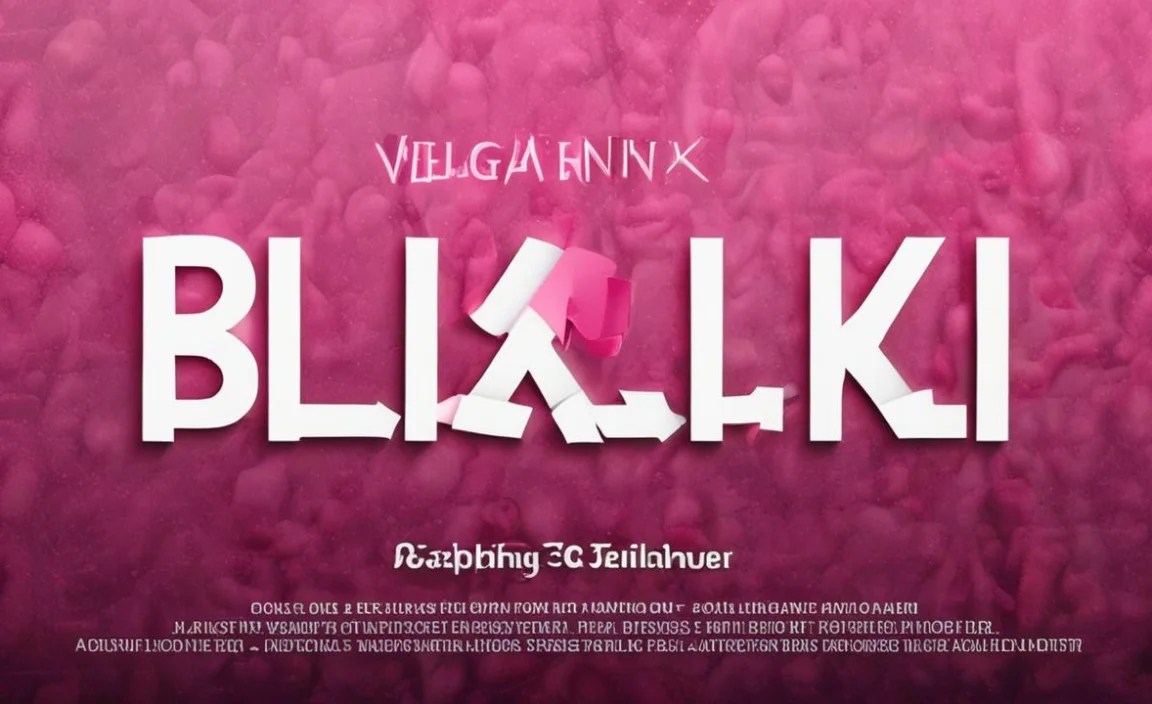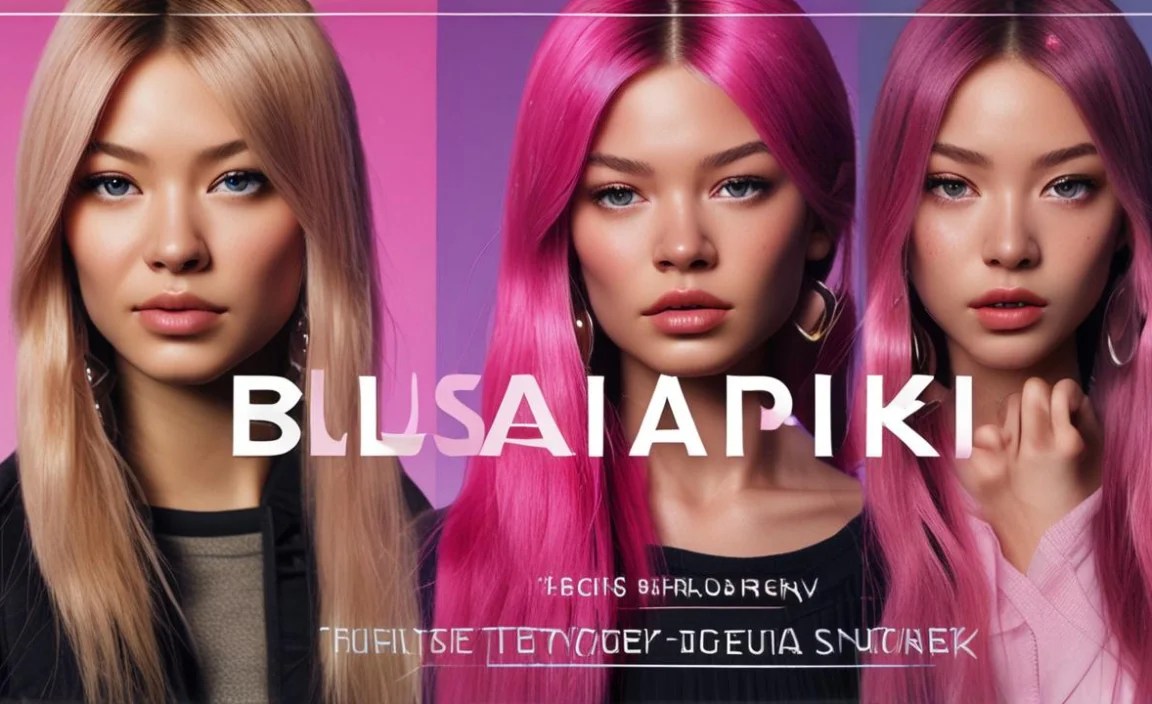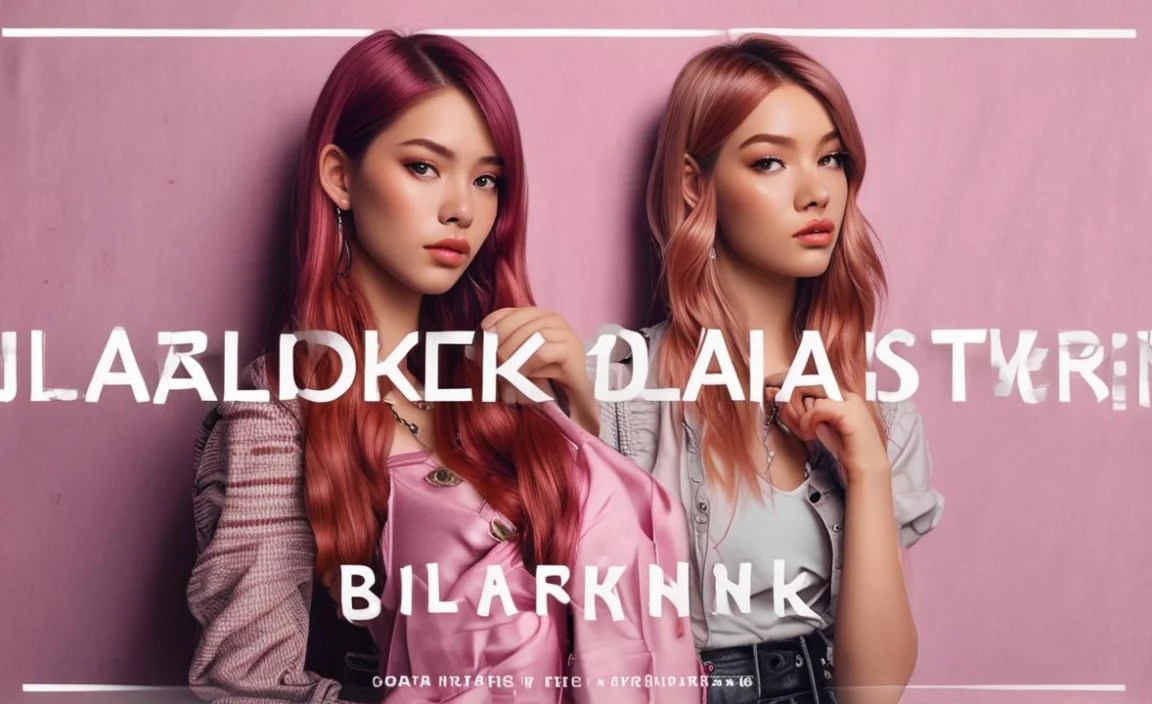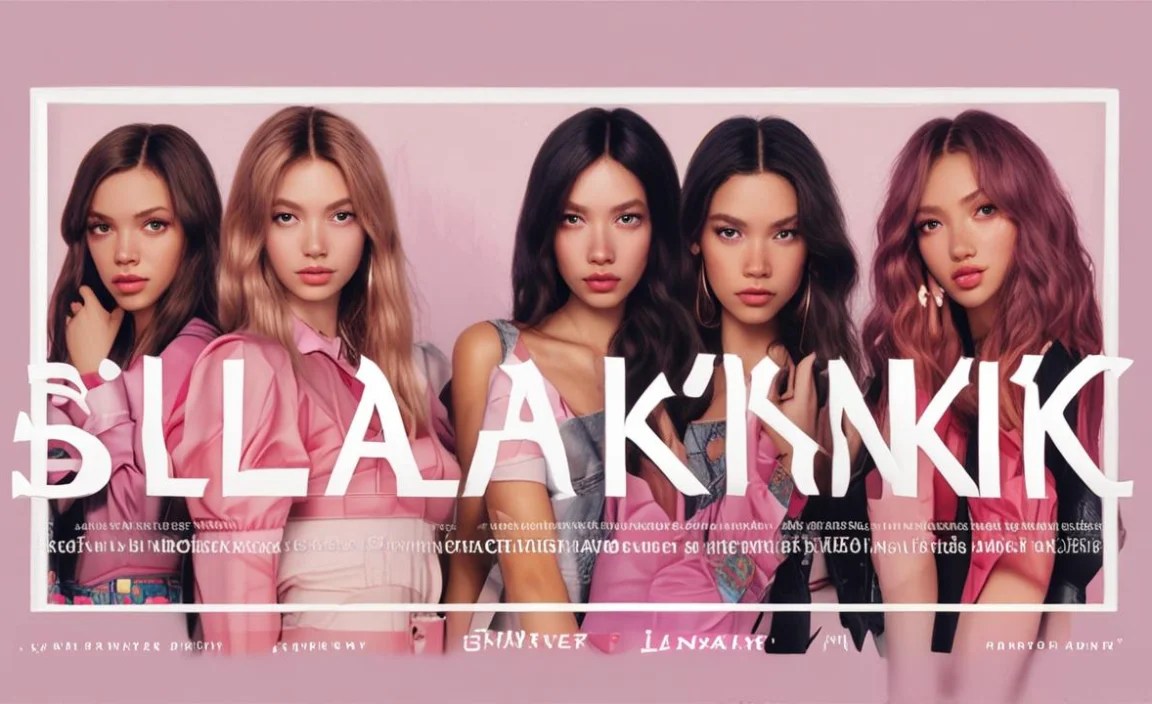
The Blackpink Font (Primetime) used in the world-famous Blackpink Logo has become iconic in pop culture, much like the group’s members—Jisoo, Jennie, Rosé, and Lisa.
With its bold, playful style, the font draws from Sans Serif Fonts, reflecting both elegance and modernity. This font is widely used in fan-made projects, merchandise, and even product packaging for its stylish appeal.
Blackpink Font Information
| Name | Blackpink Font |
| Style | Sans Serif, Display |
| Designer | Hypefonts |
| Type | Custom Font |
The Blackpink font family mimics several display and serif fonts, often including bold weights for headings and titles. It pairs well with script fonts for dynamic and stylish designs.
Where Blackpink Font Is In Use
- Logo designs
- Branding projects
- Movie posters
- Video game titling
- Fashion designs
- Magazine covers
- Newspapers
- Website and App development
- Web content
- Resume templates
- Official Documents
- Banners and Business cards
Best Font Pairing Examples
- Avenir (Sans Serif)
- Josefin Sans (Sans Serif)
- Old English Font (for contrast)
The Black Pink Font strikes a balance between sleek modernity and edgy personality. Whether used in album covers, logos, or posters, it communicates the bold, fun energy associated with the K-pop group. Designers love it for its versatility, making it perfect for both retro and modern fonts alike. The Blackpink Font stands as a favorite for fan art, product designs, and branding.
5.What Fonts Are Similar To Blackpink Font?
Fonts such as Avenir and Selena Gomez Font share similar styles and are often used in similar design contexts.
6.What Type Of Projects Is Blackpink Font Used For?
Blackpink Font is frequently used for branding, logos, product packaging, and promotional materials, especially in music and pop culture-themed designs.
7.Is Blackpink Font Available In Bold Styles?
Yes, bold variations of Blackpink Font are available and are commonly used for headings, logos, and other prominent text elements.